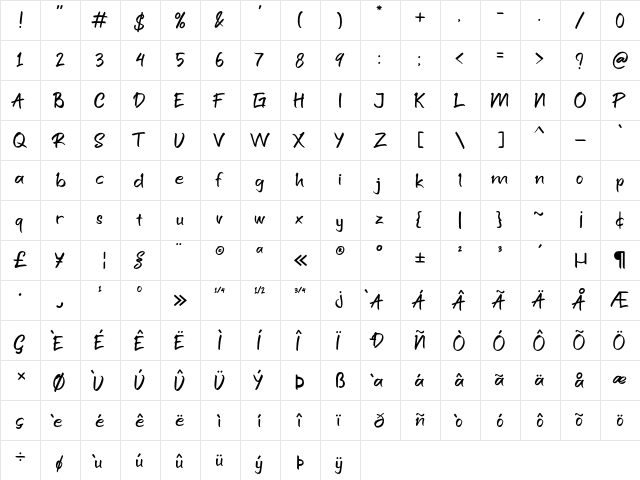
Santuy Regular
| Foundry | Monocotype Studio |
| Designer | Refialdi Dwi Putranto |
Design Context for Santuy Typeface
Santuy is a composed and adaptable typeface that performs quietly and consistently across a wide range of design contexts.